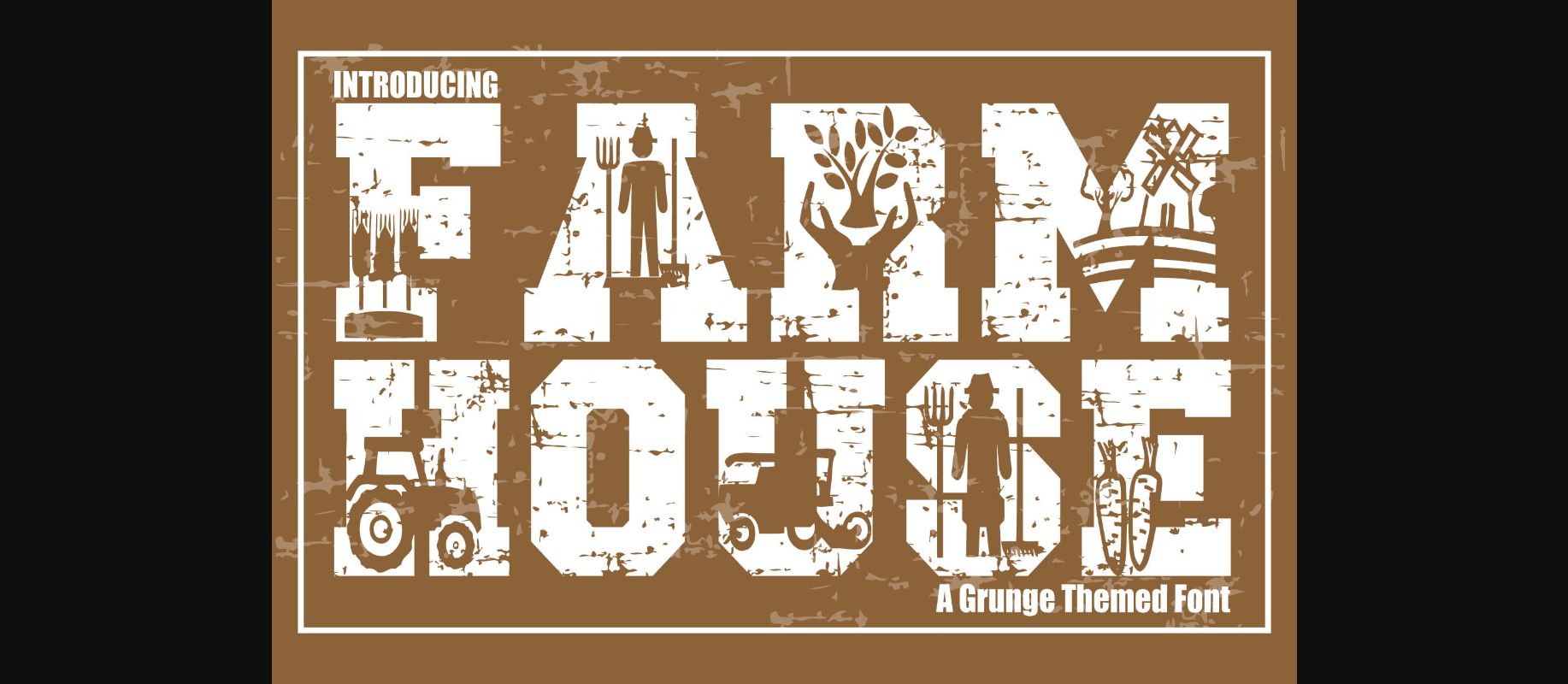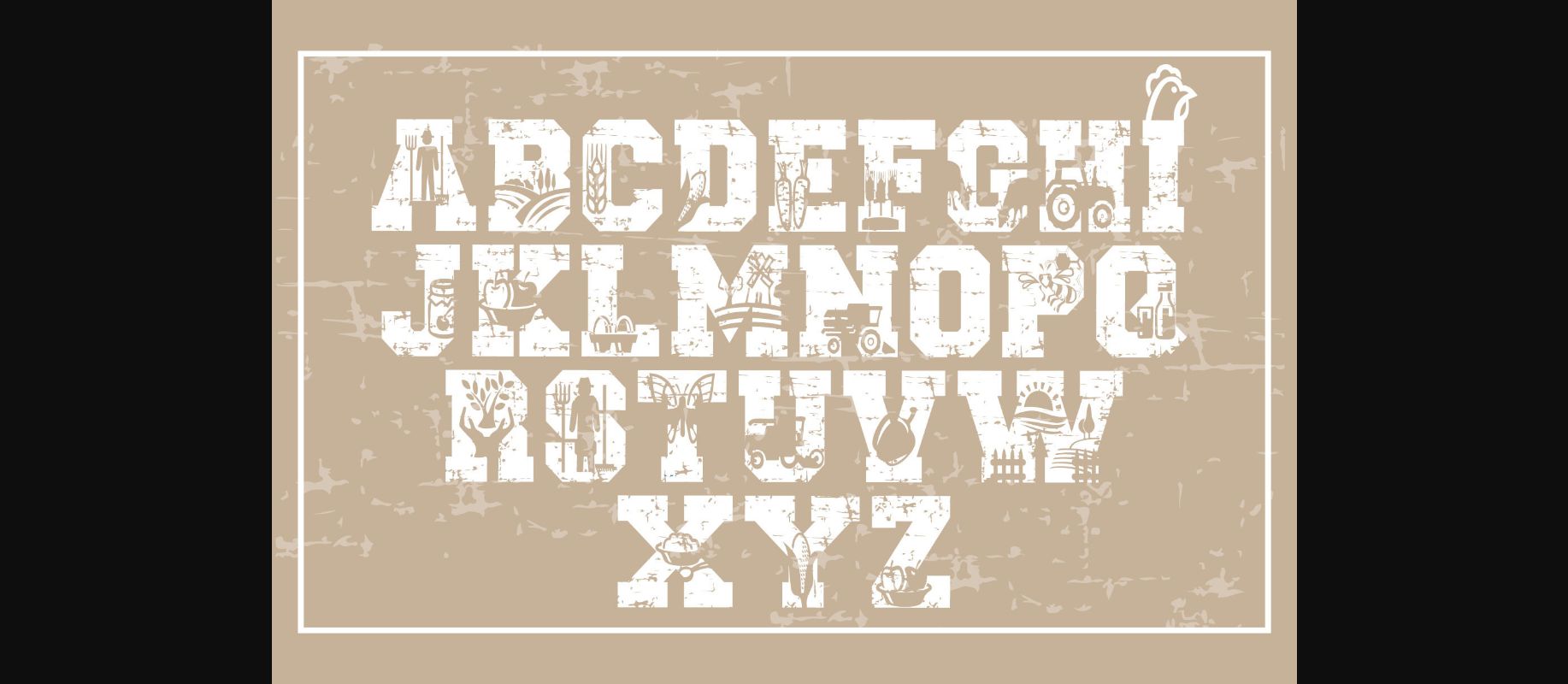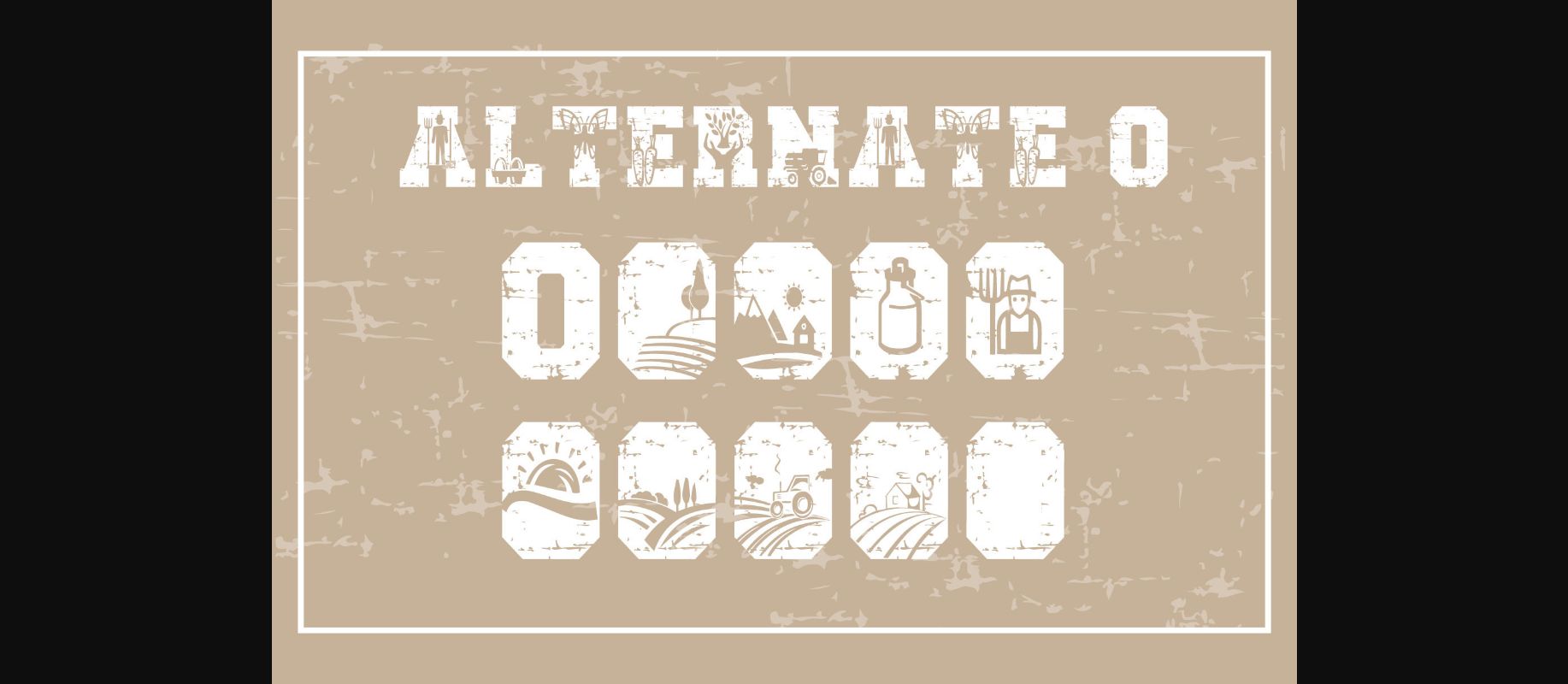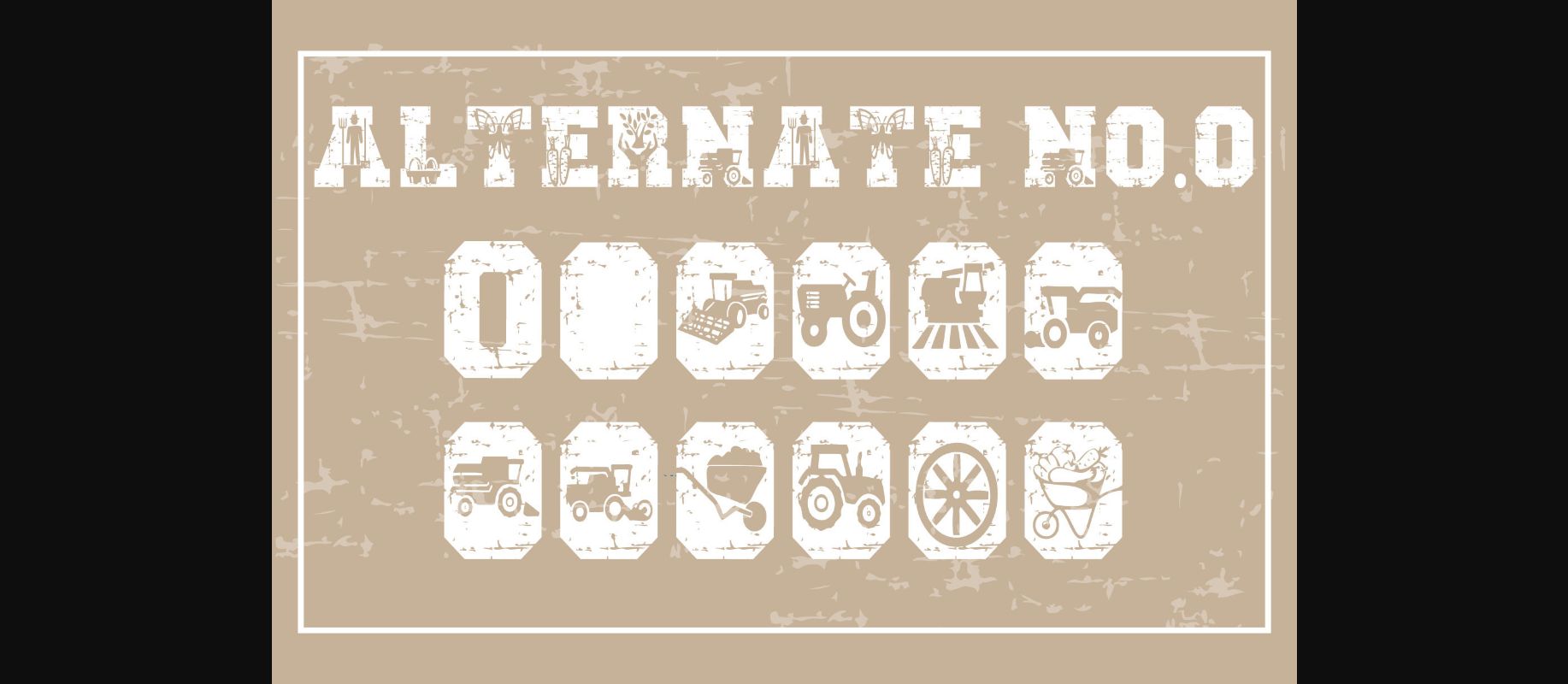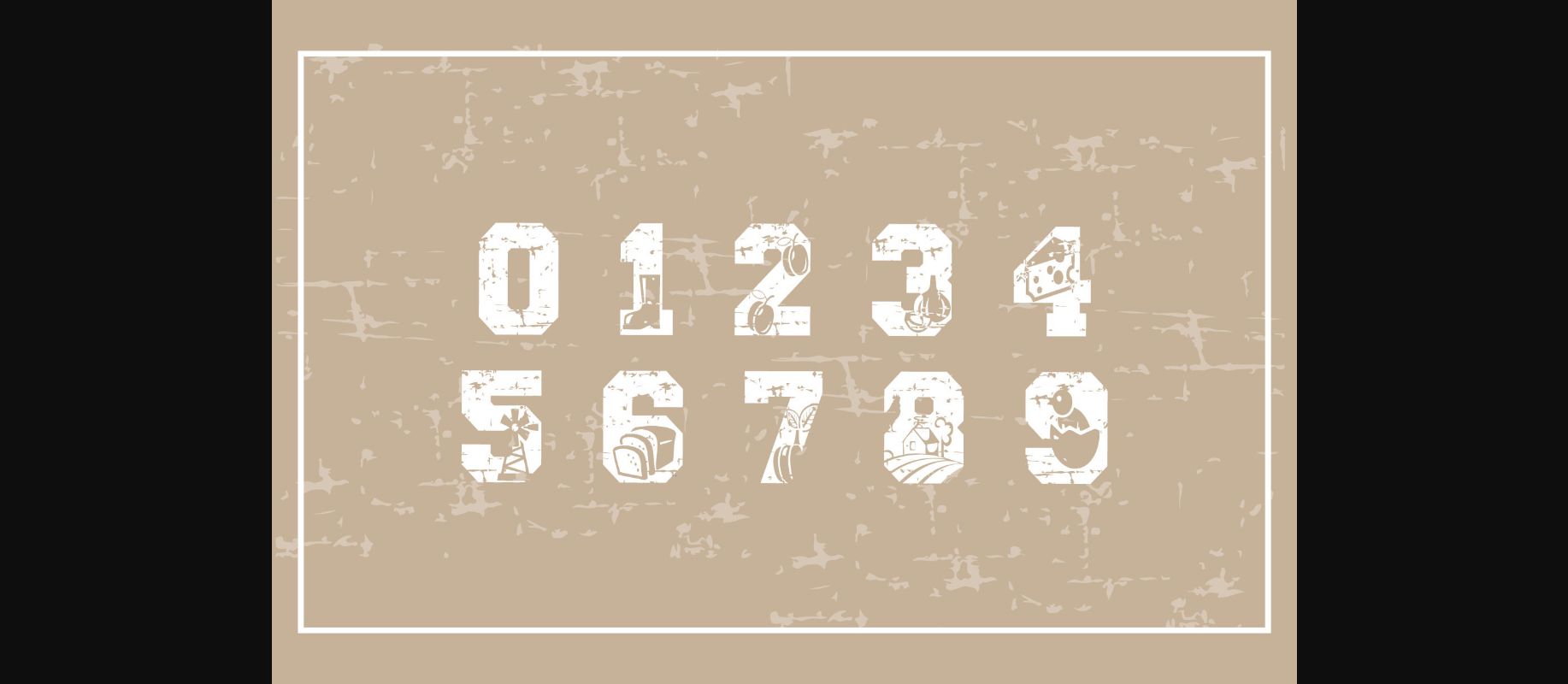
Farm House Font
About Farm House Font
Farm House is a bold, incredibly cool, and assertive decorative font. It can be used for various design ideas related to farms and the countryside. Have fun with this beautiful font and explore its endless variations.